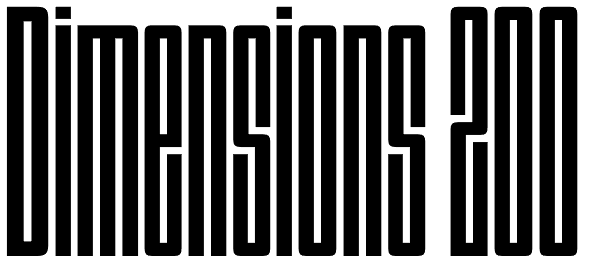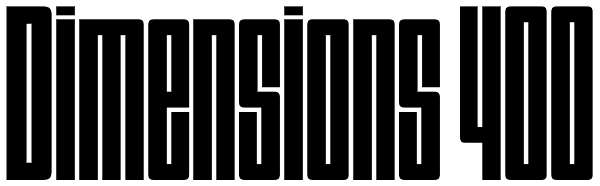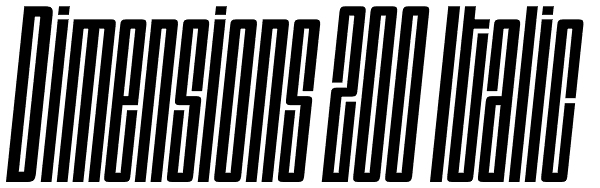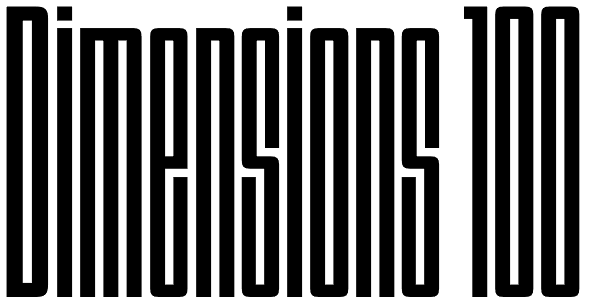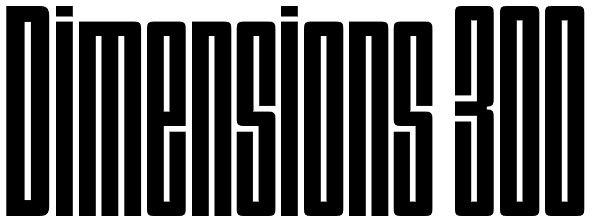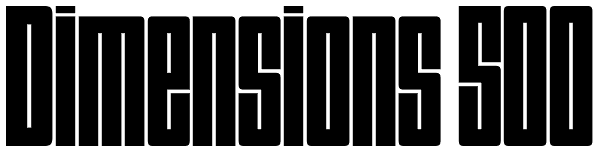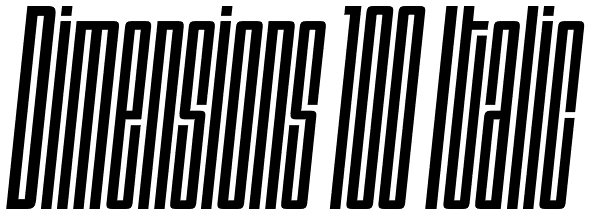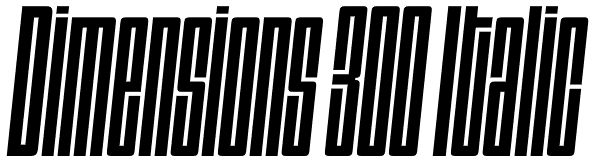
Dimensions
Dimensions is redesigned font family based on Blackout font released as free font in 2005. The original blackout has been used especially for company or brand logo of fashion and music label in the world. In 2011, Blackout had evolved into this...